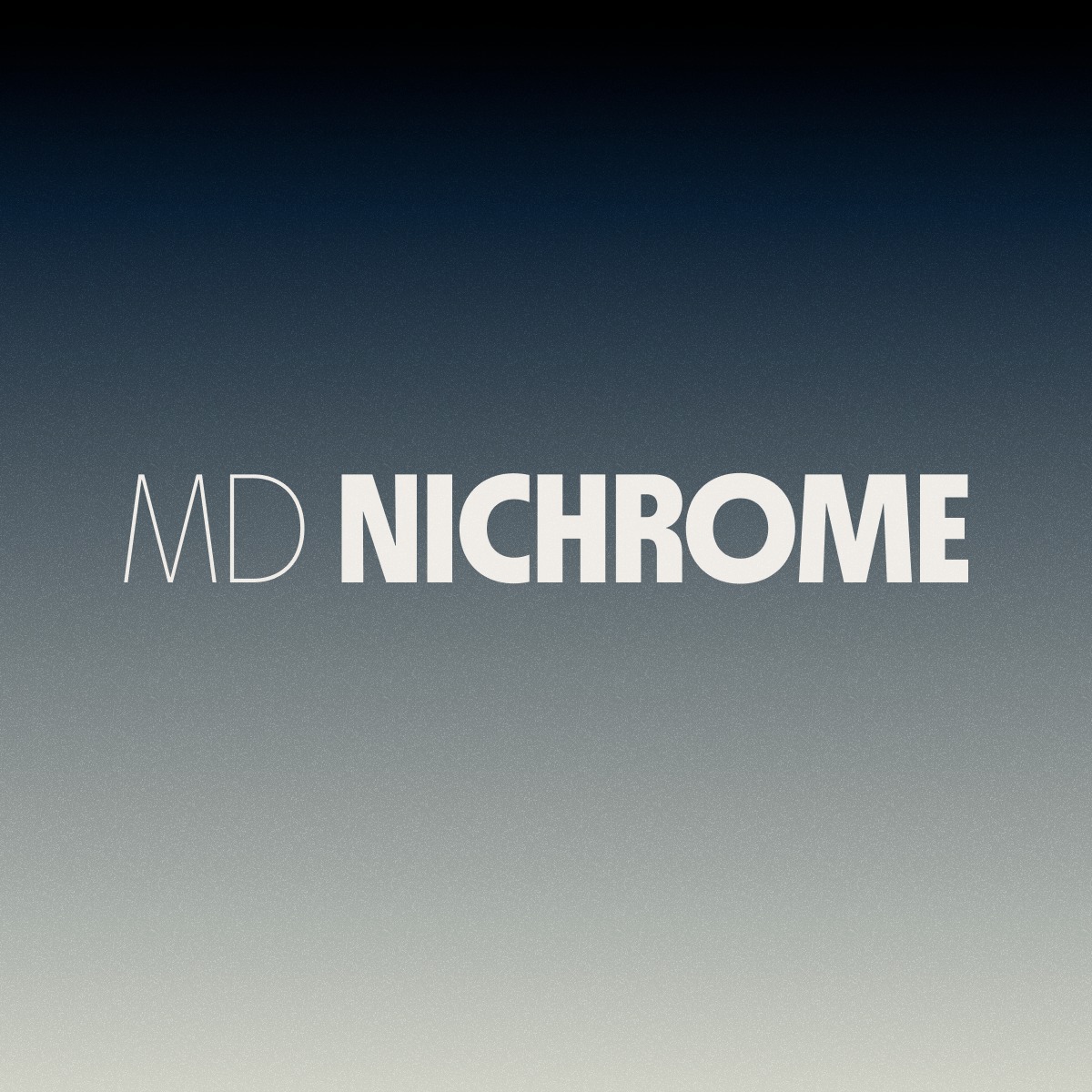
MD Nichrome Sans Serif Font is a vintage sans serif font referencing the typography of paperback science fiction from the 70s and early 80s. Many of the typefaces from this time and genre, originally drawn for dry transfer and photo-lettering, were never digitised as carefully as they deserved — MD Nichrome seeks to remedy this for current technology and style, not by reviving any single typeface, but by capturing elements of many.